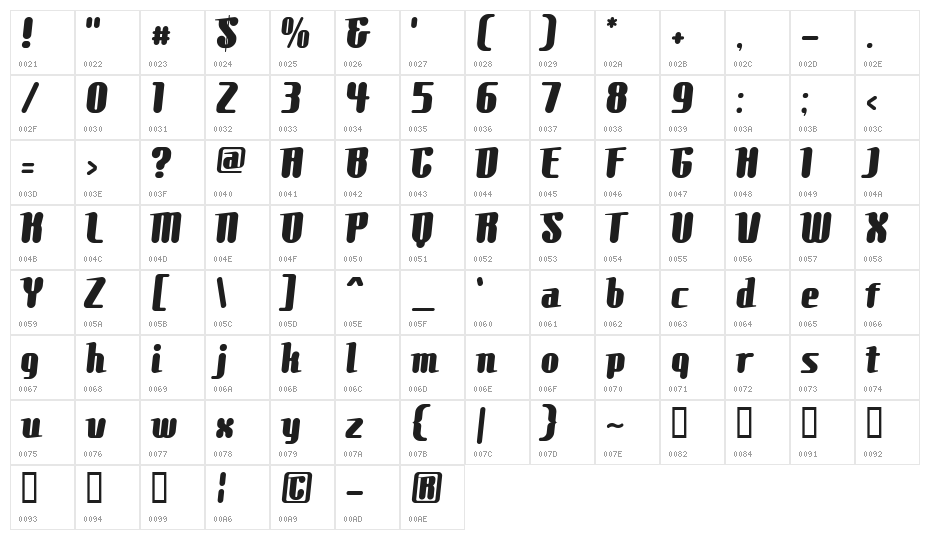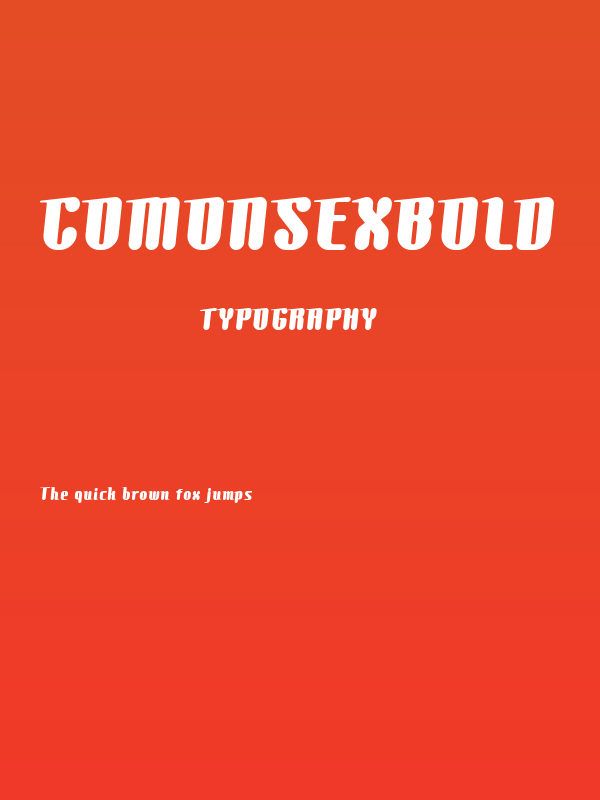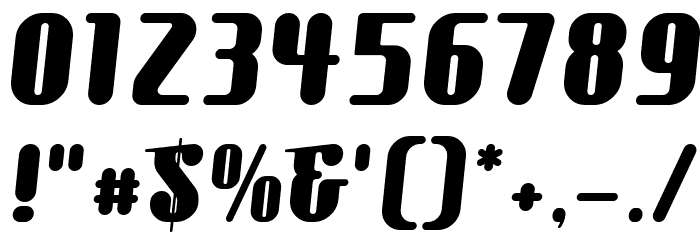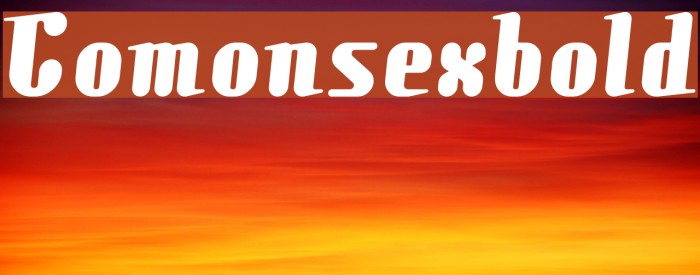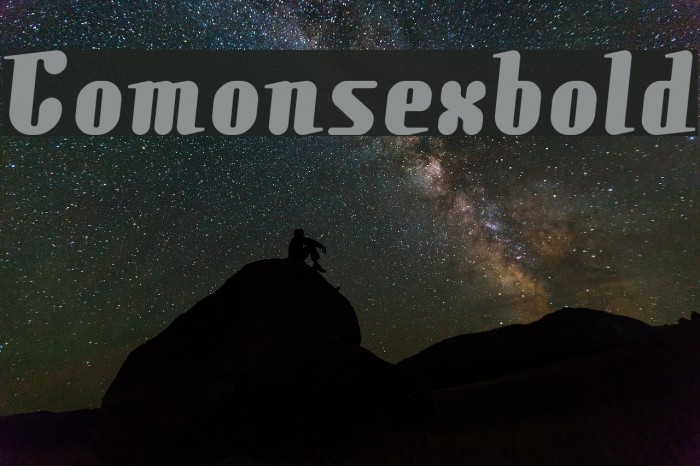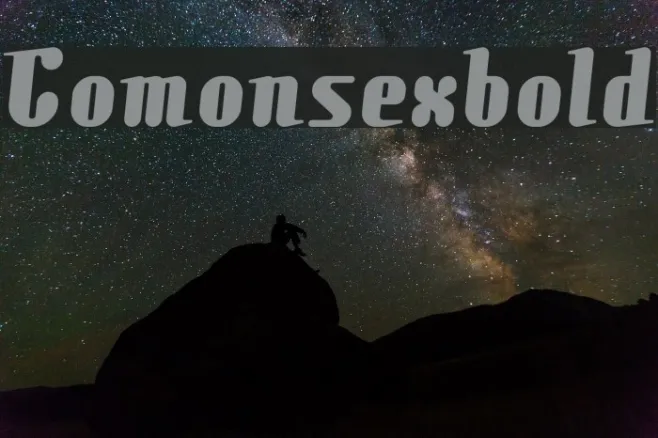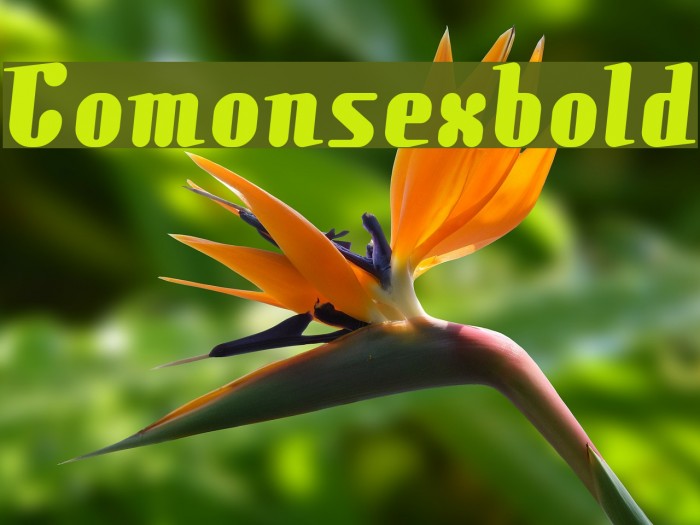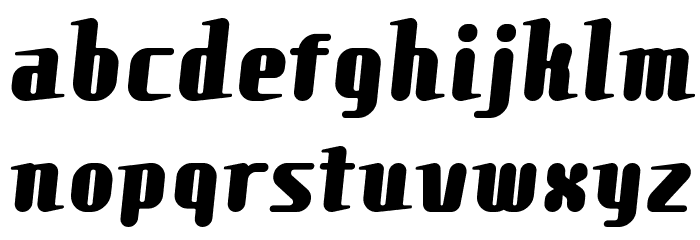
Comonsexbold Font
Comonsexbold Description
This font features a bold and dynamic style with a strong presence. The characters are slightly condensed, giving it a compact and powerful look. The strokes are thick and consistent, providing a sense of stability and strength. The uppercase letters have a distinct, blocky appearance, while the lowercase letters maintain a similar boldness with a slight slant, adding a touch of movement. The numerals are equally bold and clear, ensuring readability. Special characters are designed with the same boldness, making them stand out effectively. This font is ideal for making a strong visual impact.
| Proposed Projects | Ideal for headlines, posters, branding, and any project requiring a strong visual impact. |